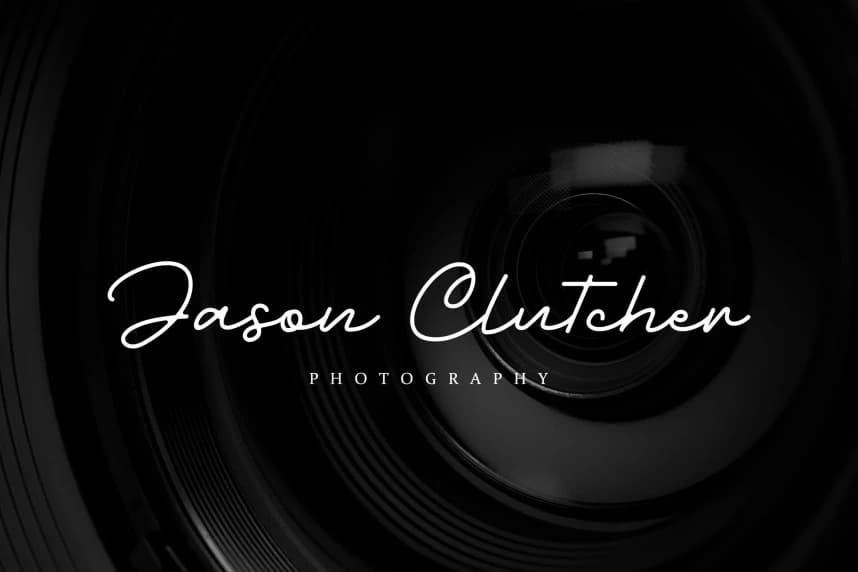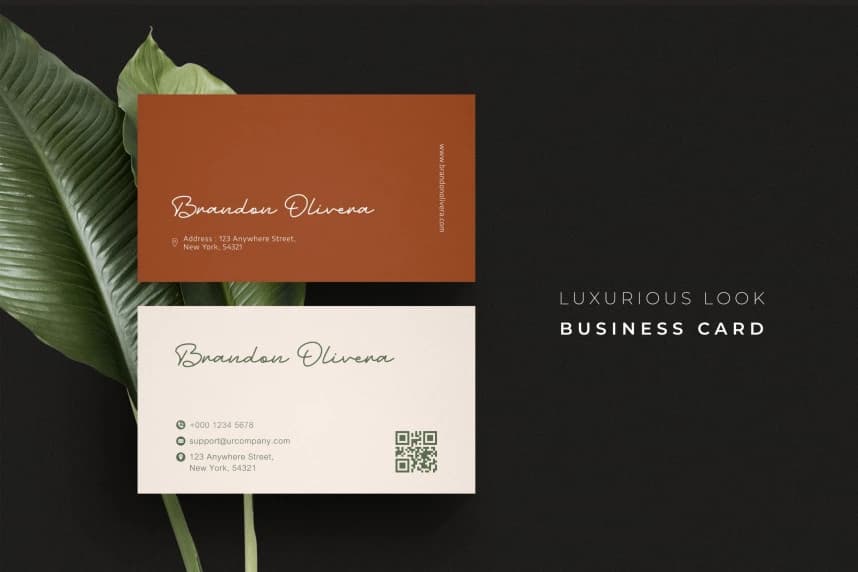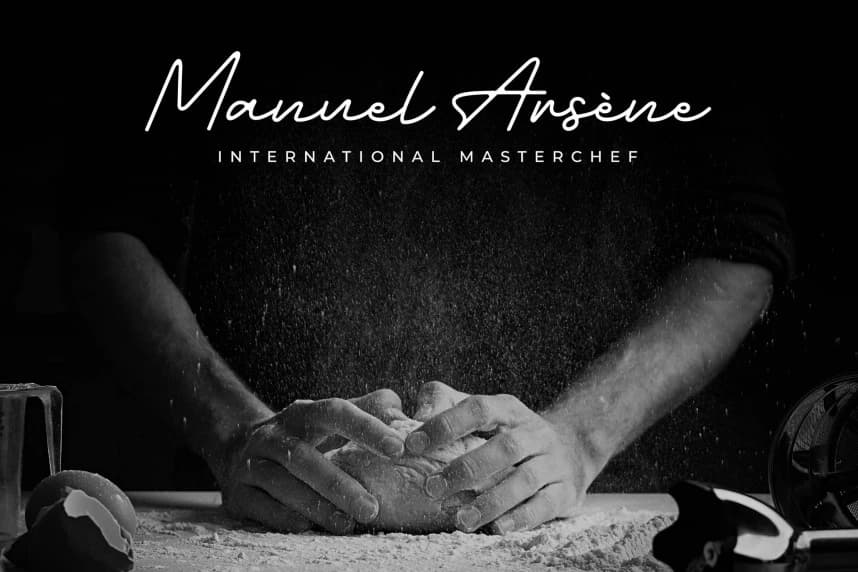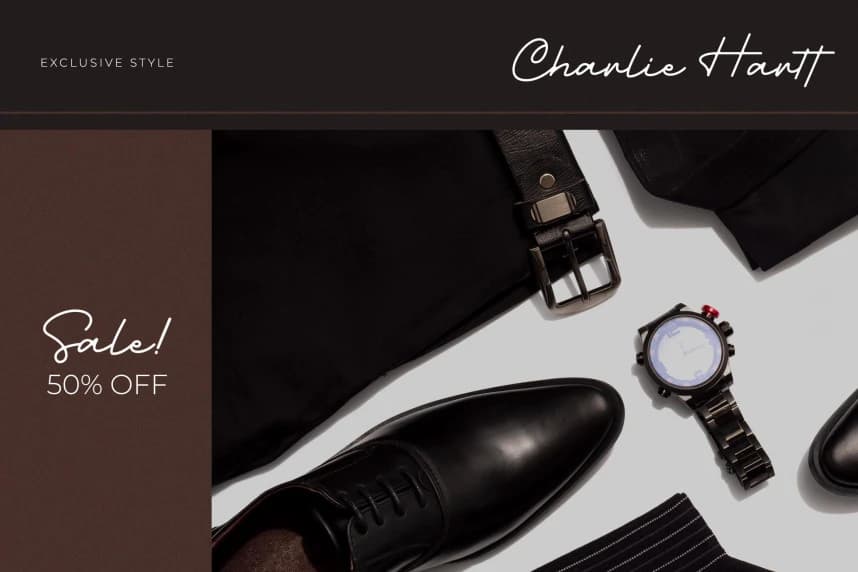
Charlotte Amalie Font
Charlotte Amalie Font – Stylish Signature and classy style, this font is great for your creative projects such as watermark on photography, and perfect for logos & branding, photography, invitation, watermark, advertisements, product designs, stationery